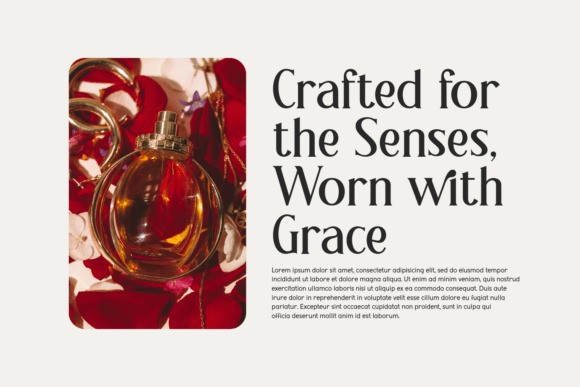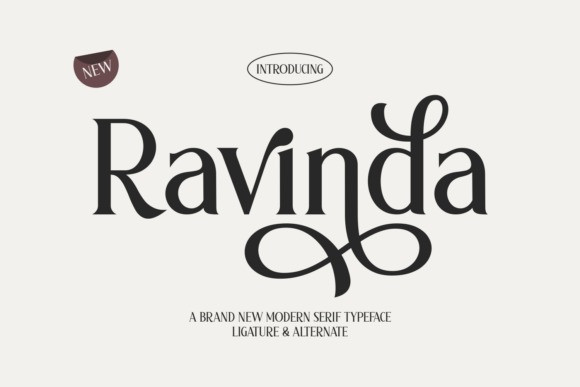
Ravinda Font
Ravinda Font a brand new modern serif typeface. The design highlights the font’s highly decorative nature, showcasing its elegant and elaborate ligatures and alternate characters with flowing swashes, making it ideal for luxury branding and high-end design.